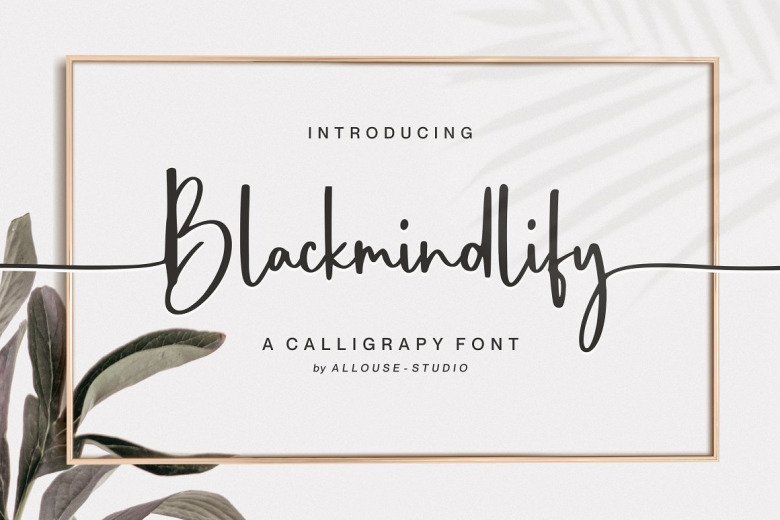
Blackmindlify Font
Present Black mindlify A Calligraphy Font Black mindlify, suitable for any titles, logo and product packaging branding project. compatibale with megazine social media wedding or simply if you just wanted to add the word above this is a background!
with beginning swash for the uppercase and lowercase, beginning and ending swash for the alternates of lowercase only18, as well support Multi-Lingual.
Blackmindlify Calligraphy Script Font